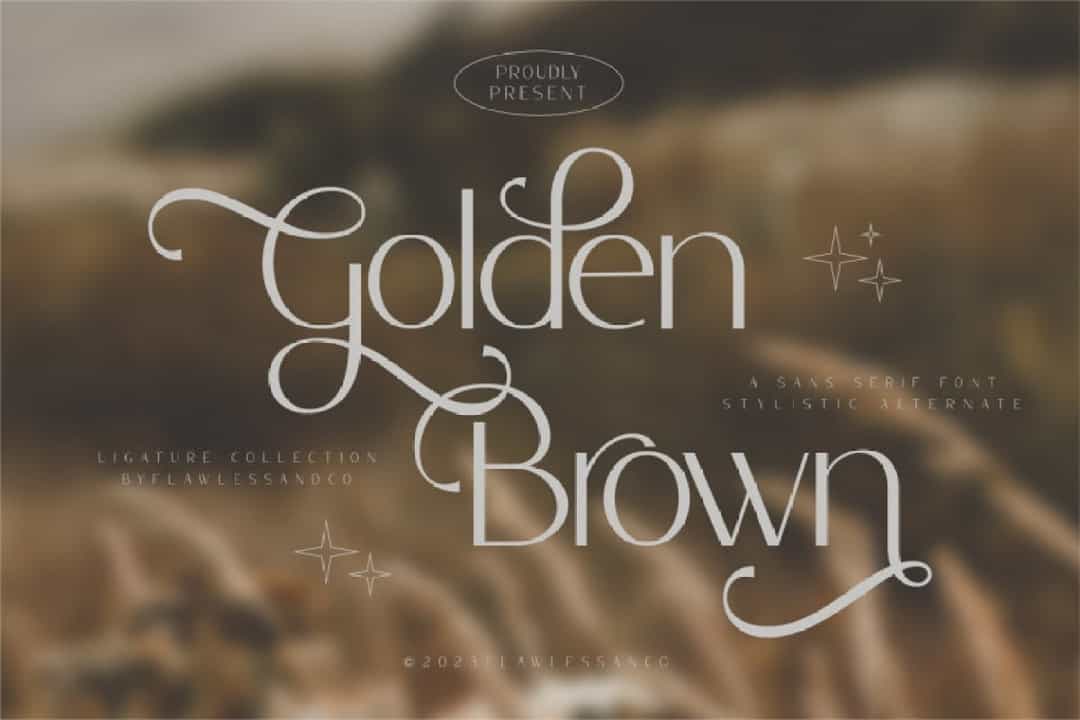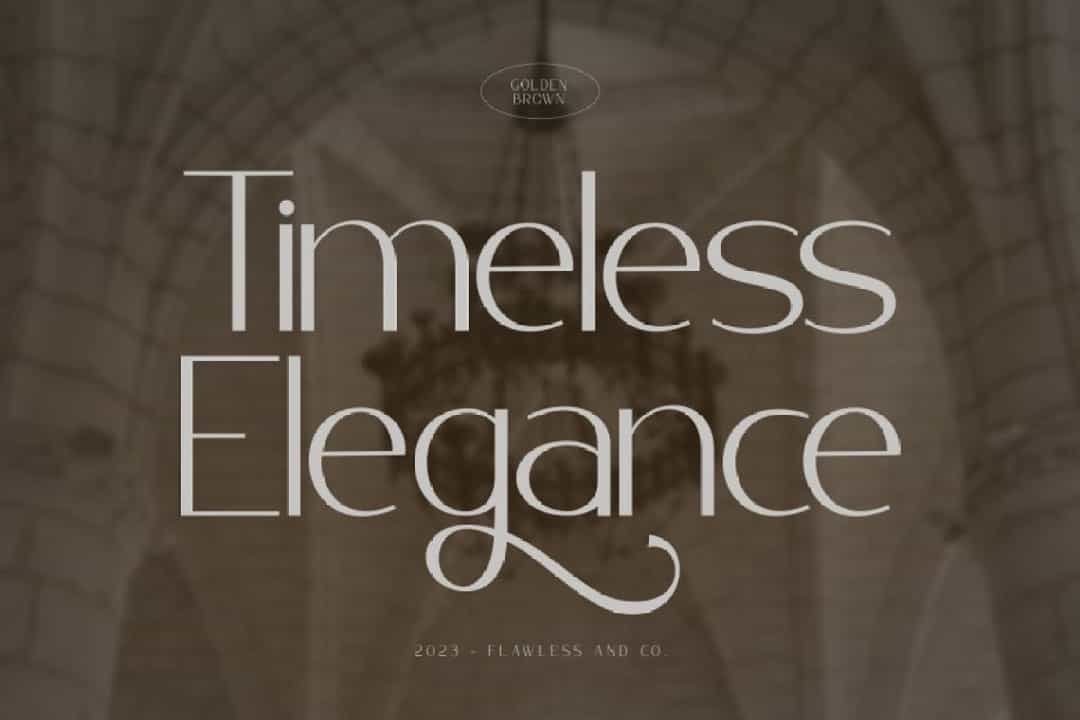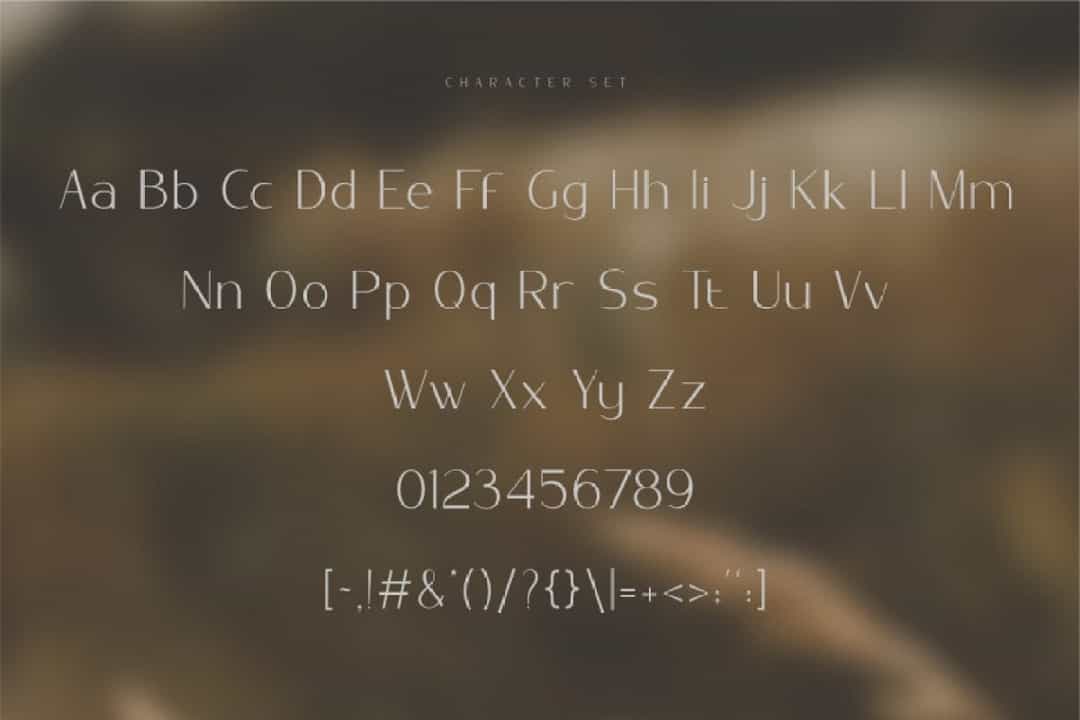
“Golden Brown,” An Elegant Sans Serif Font. Dive into an exquisite beauty world with “Golden Brown,” an exquisite sans serif font which not only exudes beauty, but offers numerous alternative characters and ligatures that expand design possibilities.